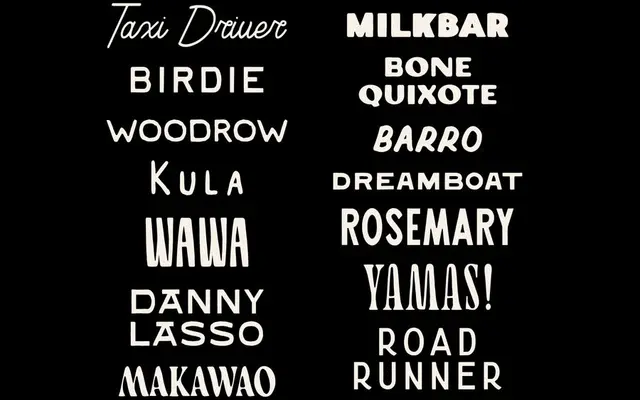
Mini Collection
Mini Collection specimen from Taylor Penton
A bundle of 14 display typefaces by Taylor Penton, sold together as a lower-cost entry point into the full collection.
Fourteen named typefaces are packaged here at a reduced price, covering a broad stylistic range suited to branding, packaging and editorial work. Each font ships as OTF for desktop and WOFF/WOFF2 for web, under a single commercial licence with no seat or traffic restrictions for teams under 50. Language support varies by typeface but spans Western European scripts including Icelandic and Welsh.
A bundle of 14 distinct display typefaces spanning a wide range of styles; no single category applies, though the collection skews toward decorative and display use cases typical of independent type designers working in branding and packaging.